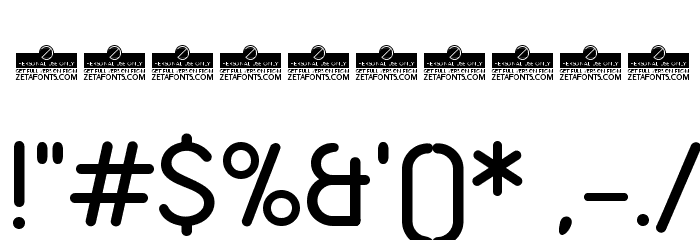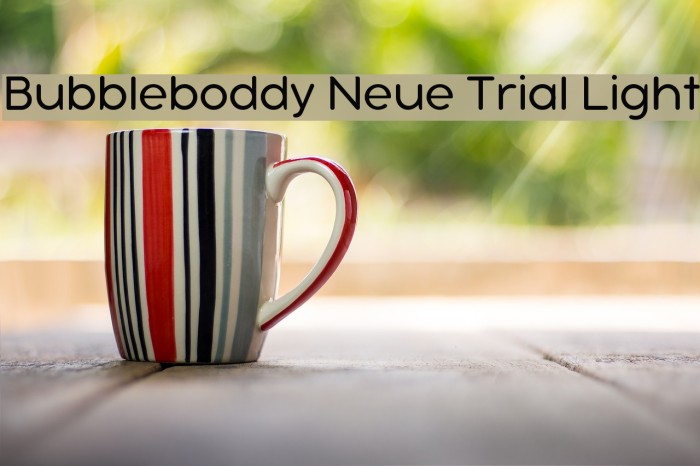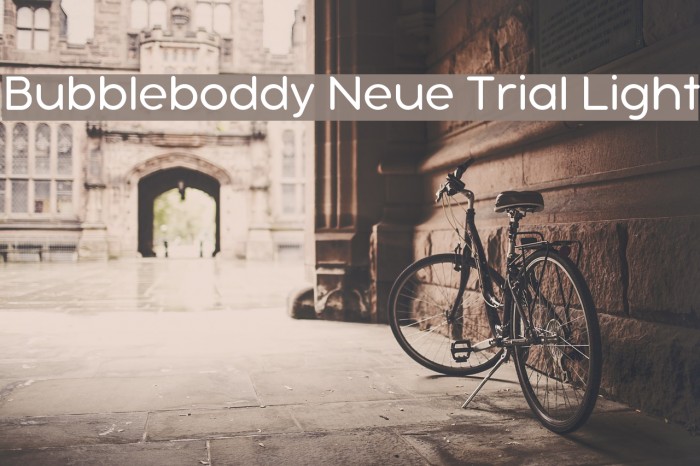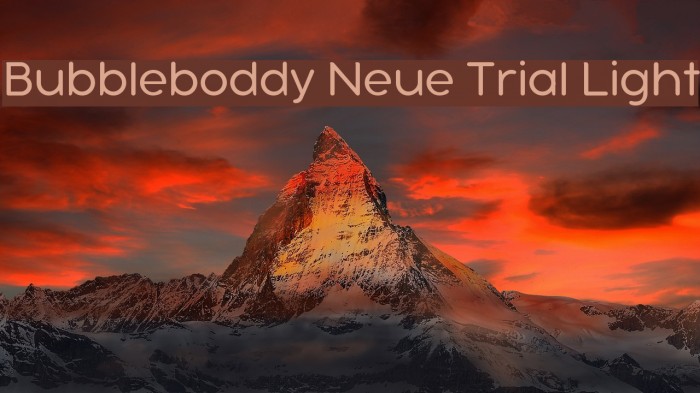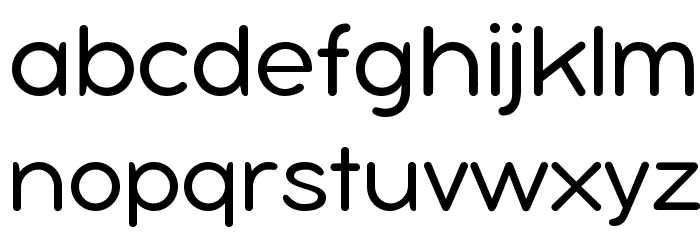
Bubbleboddy Neue Trial Light Font
Bubbleboddy Neue Trial Light Description
This font features a playful and rounded design, characterized by its smooth, circular forms and consistent line thickness. The letters are evenly spaced, creating a harmonious and friendly appearance. The uppercase and lowercase letters maintain a uniform style, with rounded edges that give the font a soft and approachable feel. The numerals and special characters are designed to match the overall aesthetic, ensuring a cohesive look across all text elements. This font is ideal for projects that require a modern yet whimsical touch, making it suitable for a variety of creative applications.
A playful, rounded font with smooth, consistent lines and a friendly appearance from Fancy fonts.
- Proposed Projects: Ideal for children's books, playful branding, casual invitations, and creative digital content.
- Use Case: Headlines, Logos, Casual Text